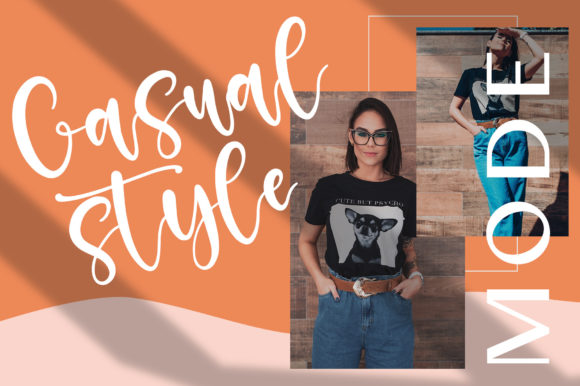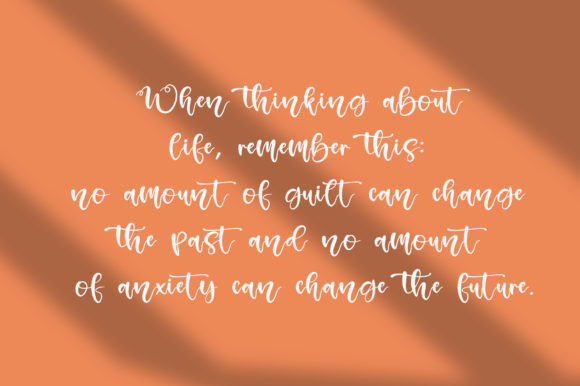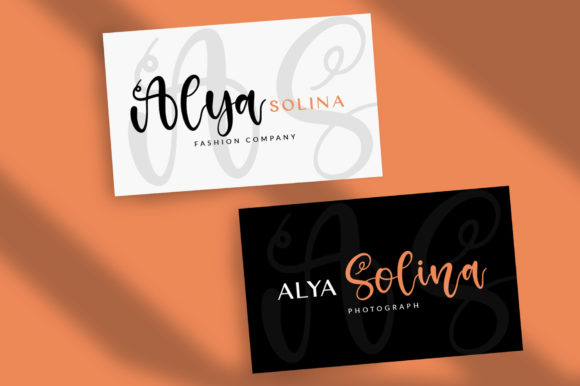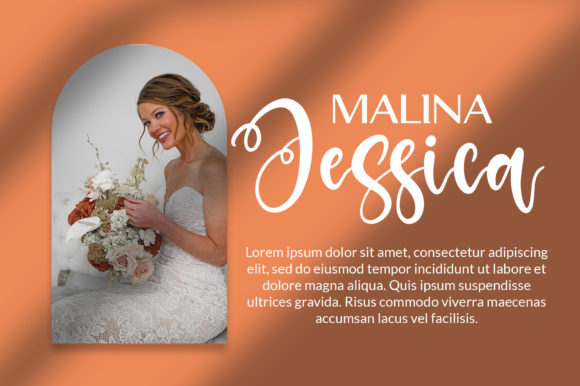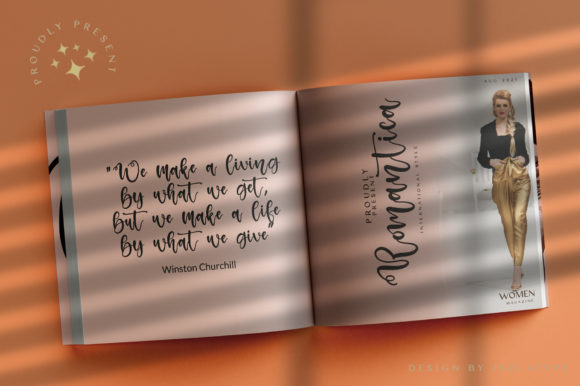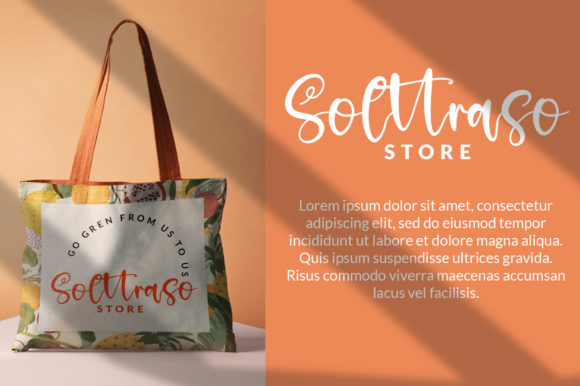
Amselia Parselia Font: The Joyful Script Font for Your Creative Projects
Are you looking for a font that can add a touch of elegance and joy to your creative projects? Look no further than Amselia Parselia, a stunning script font that is sure to captivate your audience. With its ravishing style and versatility, Amselia Parselia is the perfect choice for designers and crafters who want to create beautiful and eye-catching content.
What is Amselia Parselia Font?
Amselia Parselia is a joyful script font that is designed to bring a touch of sophistication and whimsy to your projects. Its beautiful, flowing letters are perfect for creating gorgeous wedding invitations, stunning stationery art, and eye-catching social media posts. Whether you’re a designer, crafter, or simply someone who loves to create, Amselia Parselia is a font that will inspire you to produce your best work.
Features of Amselia Parselia Font
Amselia Parselia font comes with a range of features that make it an ideal choice for creative projects. Some of its key features include:
- Beautiful Script Letters: Amselia Parselia features beautiful, flowing script letters that are perfect for creating elegant and sophisticated content.
- Versatile: This font is versatile and can be used for a wide range of projects, from wedding invitations and stationery art to social media posts and more.
- Easy to Read: Despite its ornate style, Amselia Parselia is easy to read, making it perfect for body text and headlines.
- Scalable: This font is scalable, meaning you can use it for projects of all sizes, from business cards to billboards.
Uses of Amselia Parselia Font
Amselia Parselia font is perfect for a wide range of creative projects, including:
- Wedding Invitations: Create beautiful and elegant wedding invitations that will set the tone for your special day.
- Stationery Art: Use Amselia Parselia to create stunning stationery art, including greeting cards, thank you cards, and more.
- Social Media Posts: Add a touch of elegance and sophistication to your social media posts with Amselia Parselia.
- Branding and Packaging: Use this font to create beautiful branding and packaging materials, including logos, labels, and more.
Why Choose Amselia Parselia Font?
There are many reasons why you should choose Amselia Parselia font for your creative projects. Here are just a few:
- Unique and Eye-Catching: Amselia Parselia is a unique and eye-catching font that will set your projects apart from the crowd.
- Elegant and Sophisticated: This font is elegant and sophisticated, making it perfect for projects where you want to create a sense of luxury and refinement.
Tips for Using Amselia Parselia Font
Here are a few tips for using Amselia Parselia font in your creative projects:
- Use it Sparingly: Amselia Parselia is a bold and eye-catching font, so use it sparingly to avoid overwhelming your audience.
- Pair it with Other Fonts: Experiment with pairing Amselia Parselia with other fonts to create interesting and dynamic layouts.
- Experiment with Colors: Amselia Parselia looks great in a range of colors, so don’t be afraid to experiment and find the perfect color scheme for your project.
Amselia Parselia font is a stunning script font that is perfect for designers and crafters who want to create beautiful and eye-catching content. With its elegant and sophisticated style, versatility, and ease of use, Amselia Parselia is an excellent choice for a wide range of creative projects. Whether you’re creating wedding invitations, stationery art, social media posts, or more, Amselia Parselia is a font that will help you produce your best work.